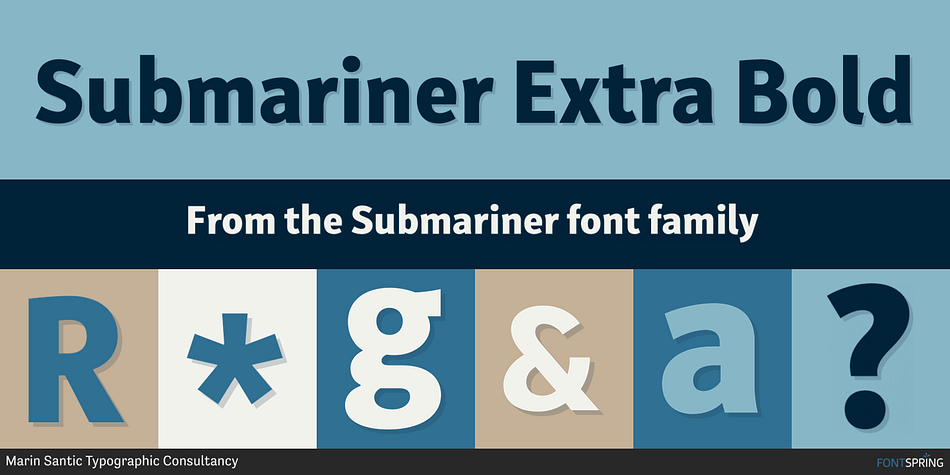
Submariner Extra Bold
Designed by Marin Šantić, Submariner is a sans serif font family. This typeface has twenty styles and was published by Type Fleet.
SUBMARINER
waterproof sans serif technology
Submariner is a waterproof type family that displays the right amount of power and character on every depth level. Thanks to its strong and humanistic construction, it can endure great information pressure. It is a marvelous typographic experience.
The letter construction is more open and endings are slightly wider. It is suitable for longer texts, information graphics, annual reports and signalization. The typeface’s x-height is exactly 70% of its capitals. The italics are designed at a 9° angle.